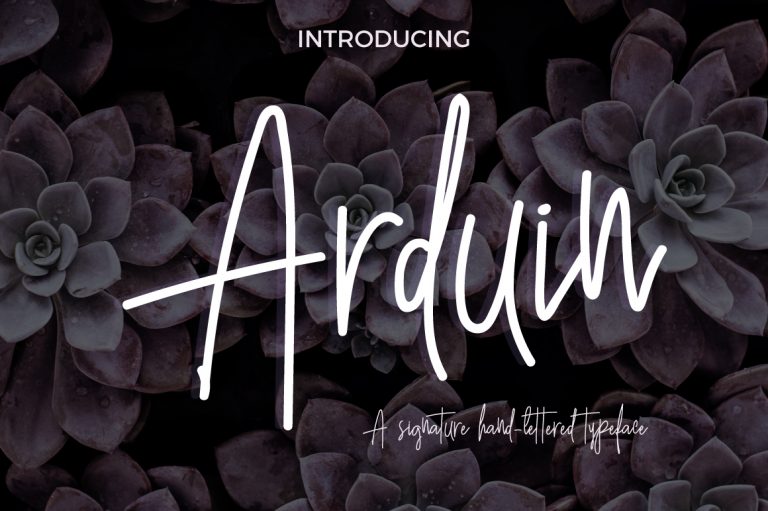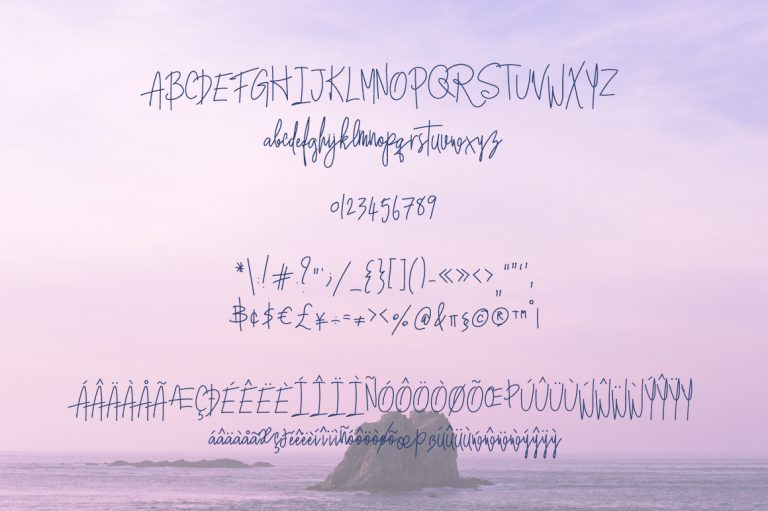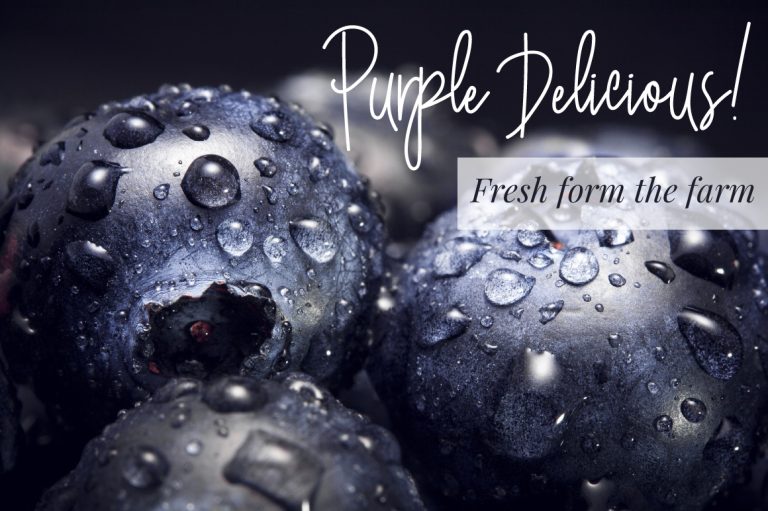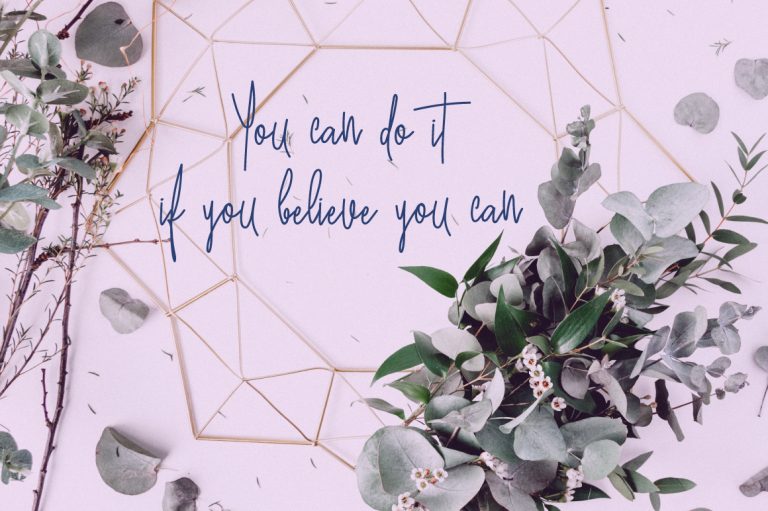
Arduin Script Font
Arduin is a handwriting script typeface designed to give off a bouncing and classy vibe. Arduin means brave friend. It’s my handwriting which is messy but still readable. It can be used to create a modern logo design for your branding projects, corporate identity, labels, stickers, packaging design, apparel design, etc.
• Standard English(A-Z, a-z)
• Western European languages supported, numbers(0-9), punctuations
• Standard ligature tt